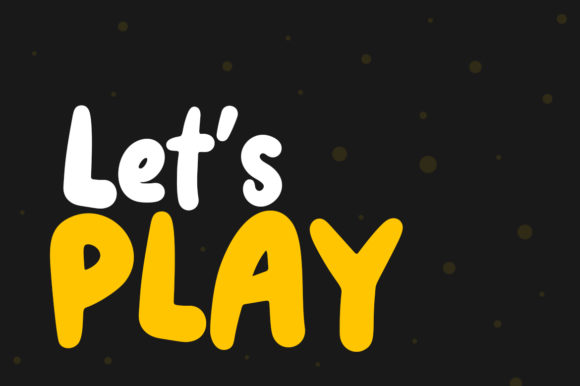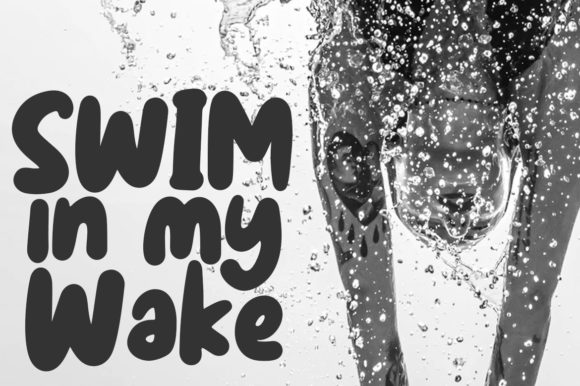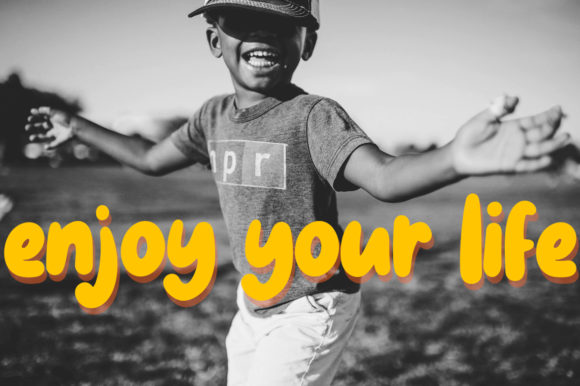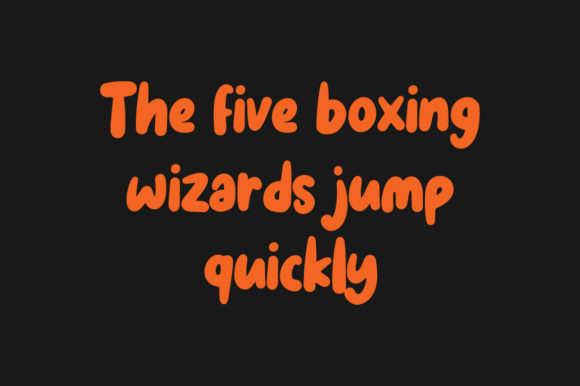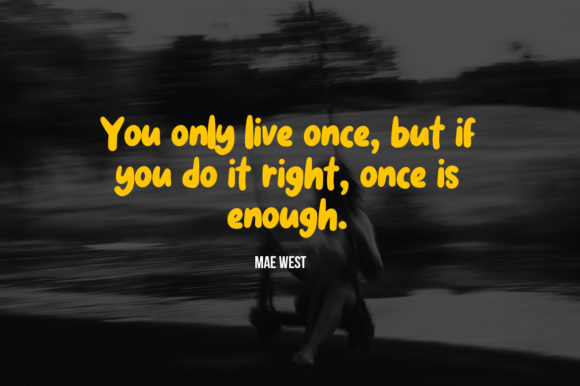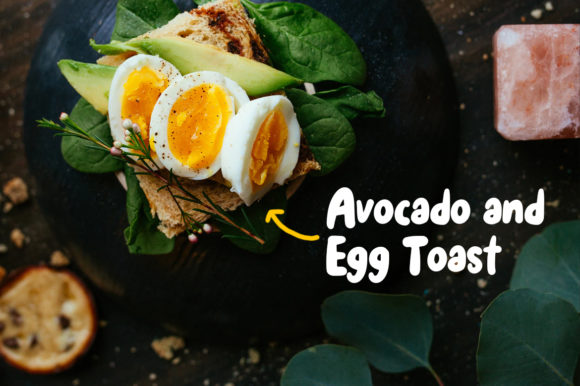
Introduction to Mochido Font
Have you ever been brainstorming for a creative project, staring blankly at a blank canvas, and suddenly a spark of inspiration strikes? The words start flowing, and your imagination runs wild. This is exactly the kind of magic that the Mochido Font brings to your design world.
With its bold, sweet, and quirky handwritten style, the Mochido Font is a game-changer for designers. Whether you’re working on a wedding invitation, a social media campaign, or a children’s book, this versatile font is sure to add a touch of whimsy and personality to your design. And the best part? It’s free to download, making it an invaluable design resource for any creative project.
What sets Mochido Font apart is its high-quality design, crafted with the help of an outstanding brush pen. The result is a beautiful, hand-drawn look that’s perfect for any event or occasion. Plus, with a transparent background, you can easily layer it with other design elements to create a stunning visual effect.
Key Features of Mochido Font
- Unique and Creative Design: Mochido Font is a high-quality design resource ideal for creative projects that require a distinctive and eye-catching font.
- Transparent Background: The transparent background of Mochido Font allows for seamless integration with various design elements, making it a versatile design resource for creative projects.
- High-Quality Resolution: Available in high-resolution formats, Mochido Font ensures crisp and clear text, even when scaled up or used in large designs.
- Perfect for Digital and Print Projects: Mochido Font is suitable for both digital and print projects, making it an excellent choice for designers working on a variety of creative projects, from social media graphics to business cards and brochures.
Honest Review: Mochido Font
As a designer, I’m always on the lookout for unique and high-quality design resources to elevate my creative projects. The Mochido Font caught my eye, and I’m excited to share my honest review.
- ✨ The Mochido Font offers a transparent background, making it perfect for projects that require a clean and minimalist aesthetic.
- ✨ The font is highly customizable, allowing me to adjust the size, color, and style to suit my design needs.
- ⚠️ The font may not be as versatile as some other design resources, limiting its use in certain creative projects.
Overall, I’m impressed with the Mochido Font’s unique style and high quality. It’s a great design resource for designers who want to add a touch of personality to their projects. While it may have some limitations, I believe it’s a valuable addition to any design library.
Using Mochido Font in Creative Projects
Tips for Getting the Most Out of Mochido Font
To maximize the potential of Mochido Font, experiment with different font sizes, colors, and combinations. You can also pair it with other high-quality design resources to create a unique and eye-catching look. Don’t be afraid to push the boundaries of traditional typography and try out bold, creative designs.
Mochido Font is ideal for a variety of applications, including:
- Digital art and graphics
- Infographics and data visualizations
- Website design and development
Does Mochido Font have a transparent background?
Yes, Mochido Font has a transparent background, making it easy to use in designs with complex backgrounds or layering. This feature allows you to create visually appealing designs with a high level of customization. Simply use the font with a transparent background in your design software, and you’re good to go!